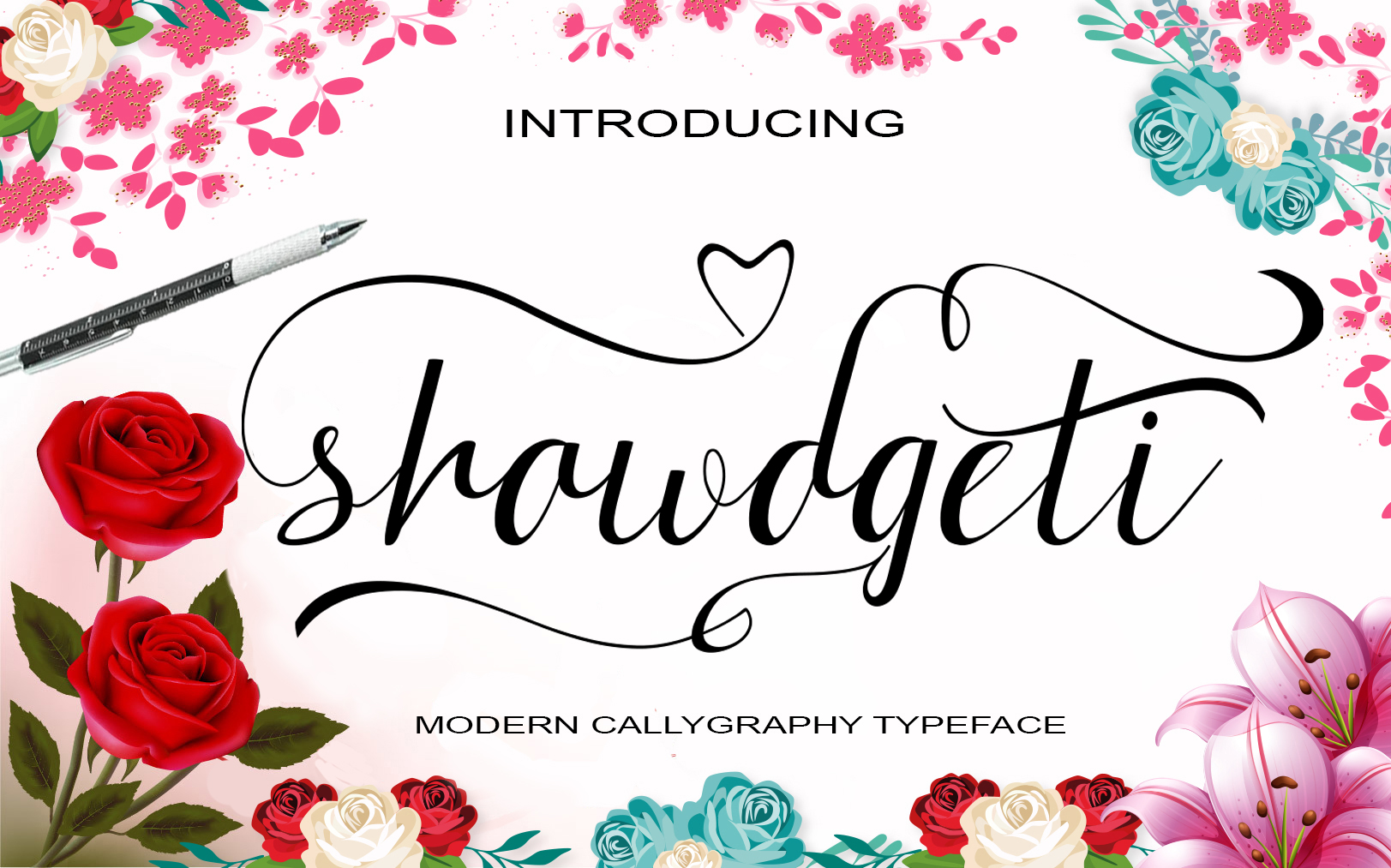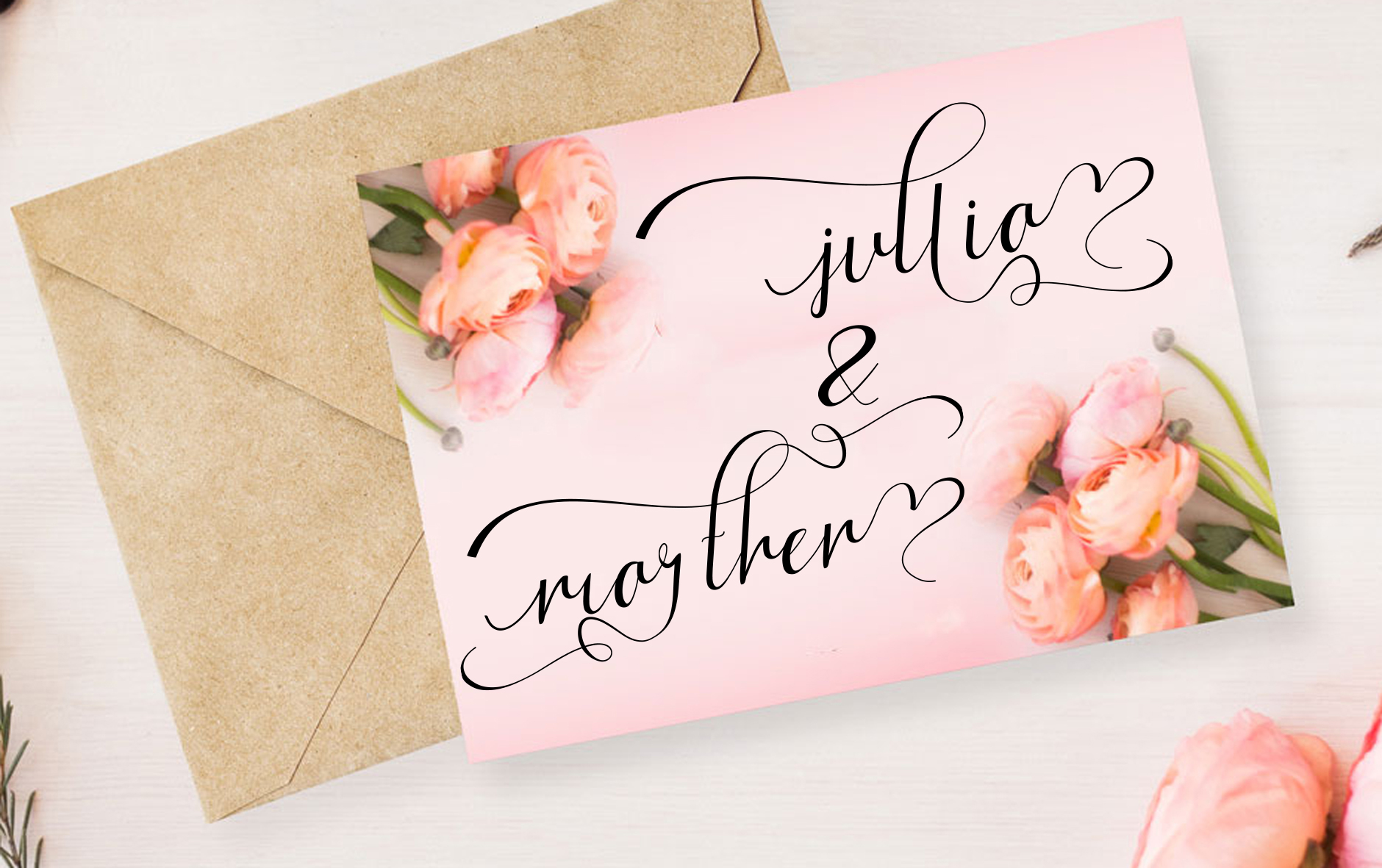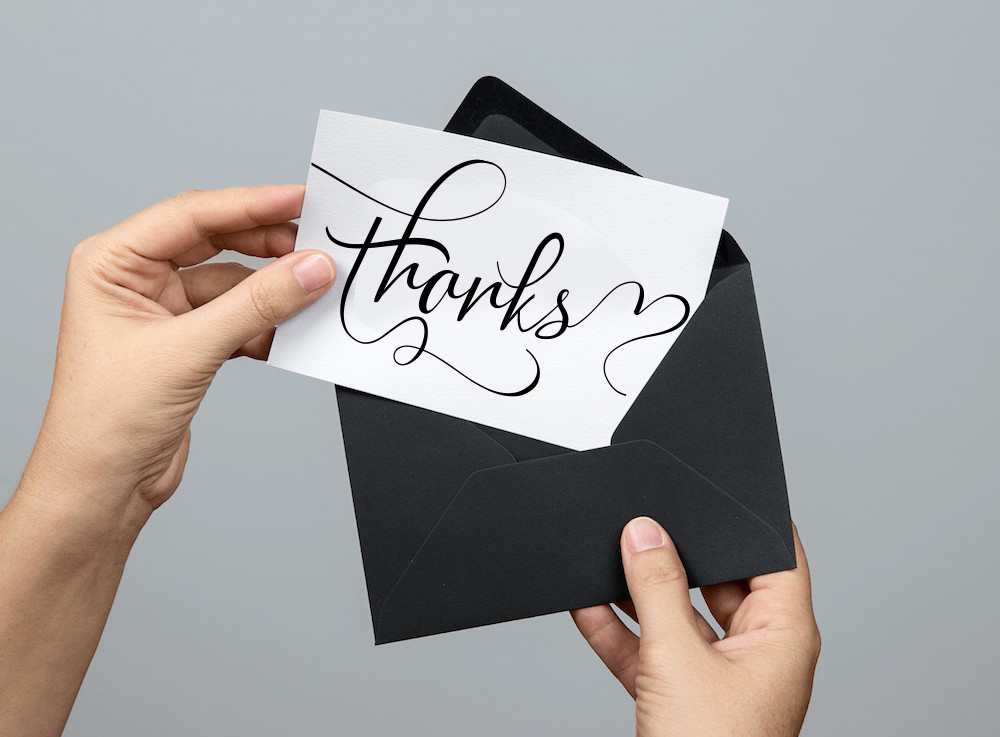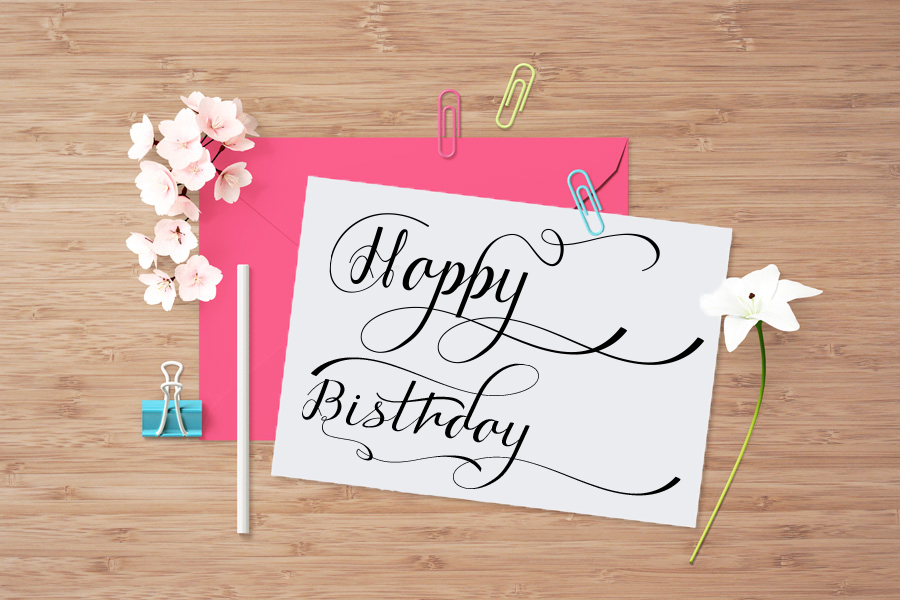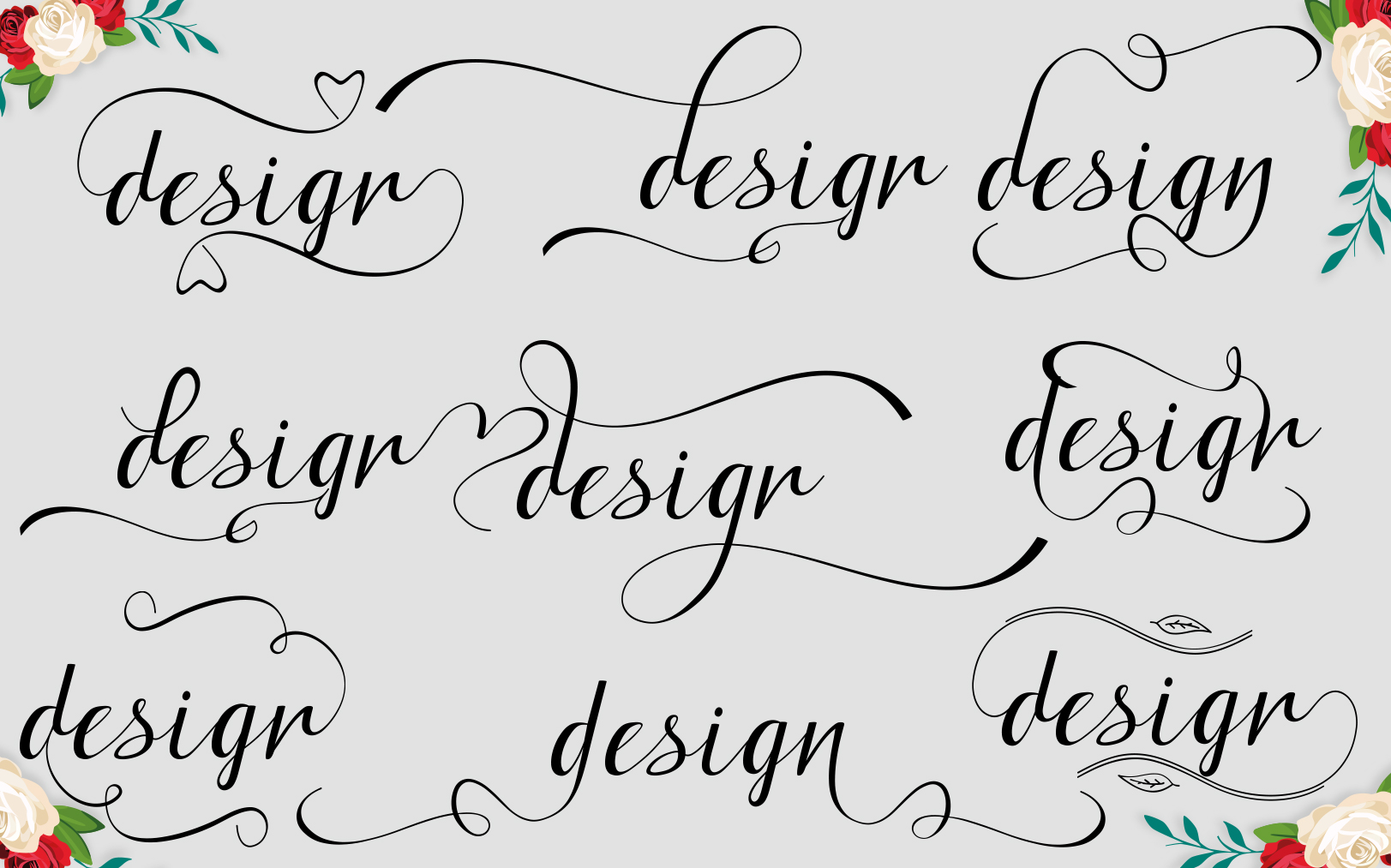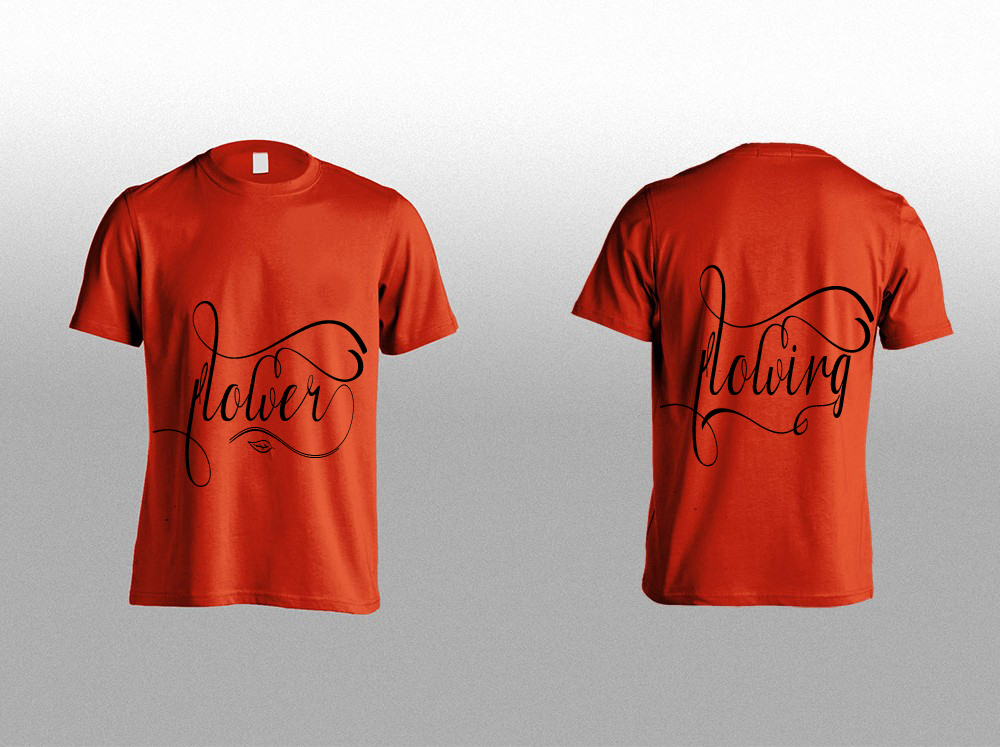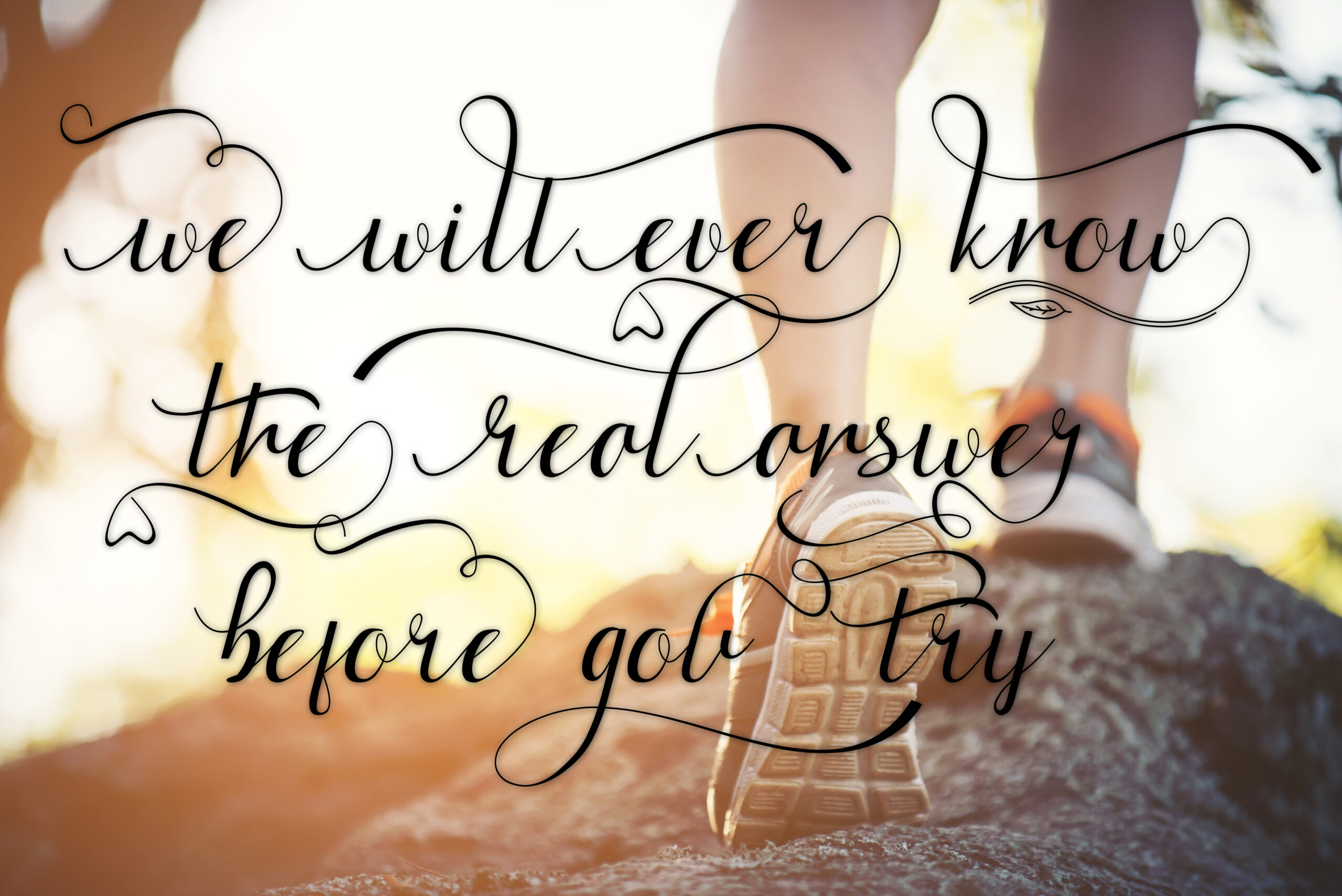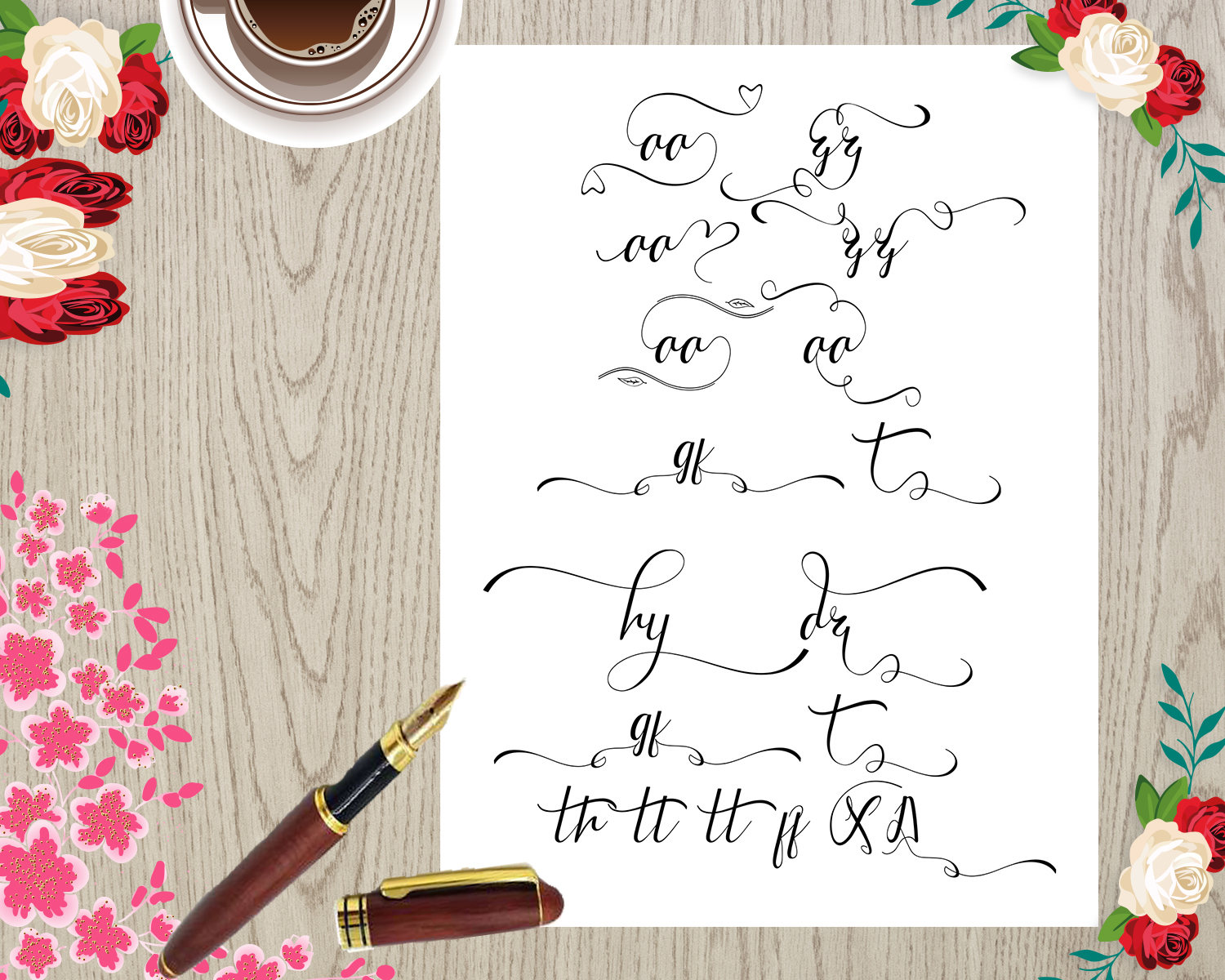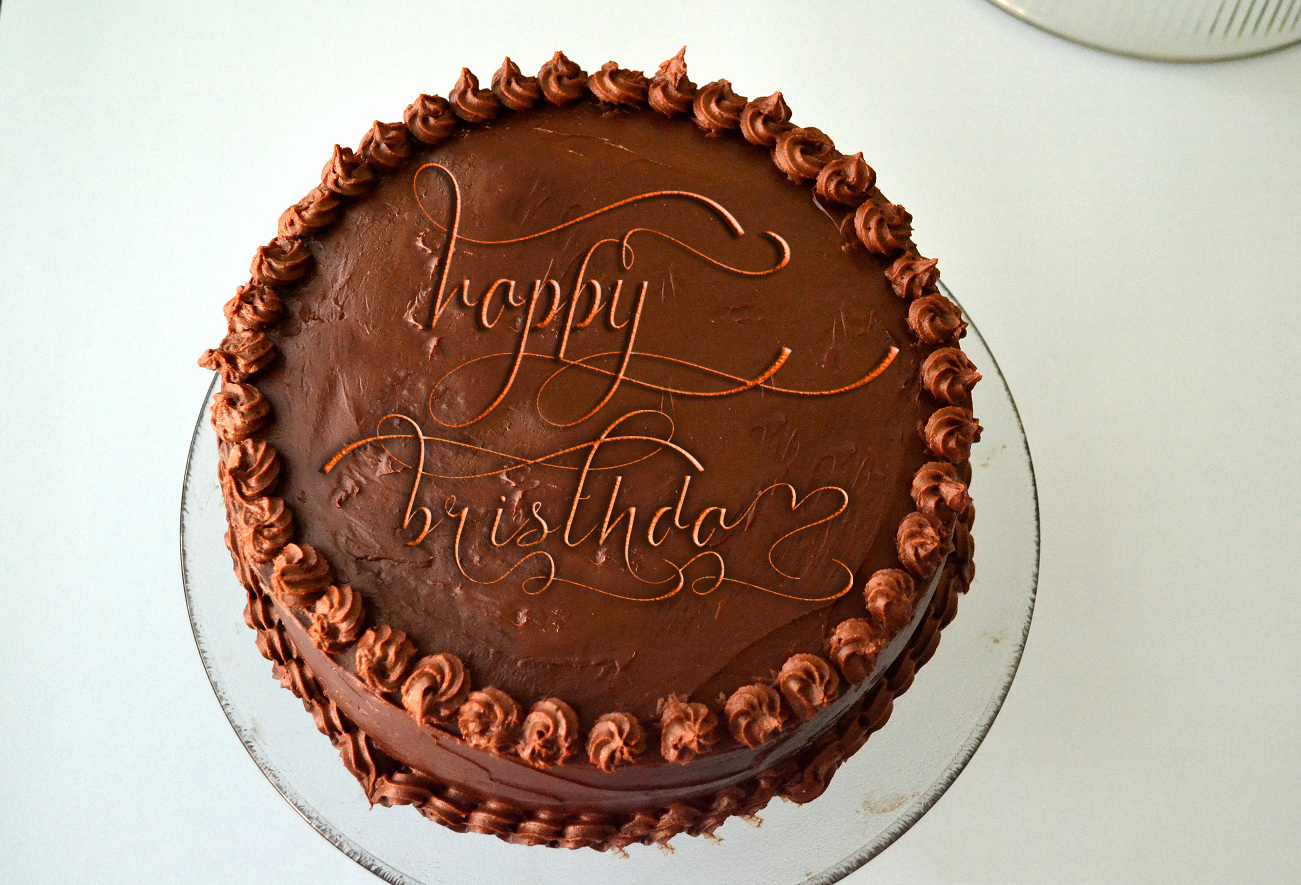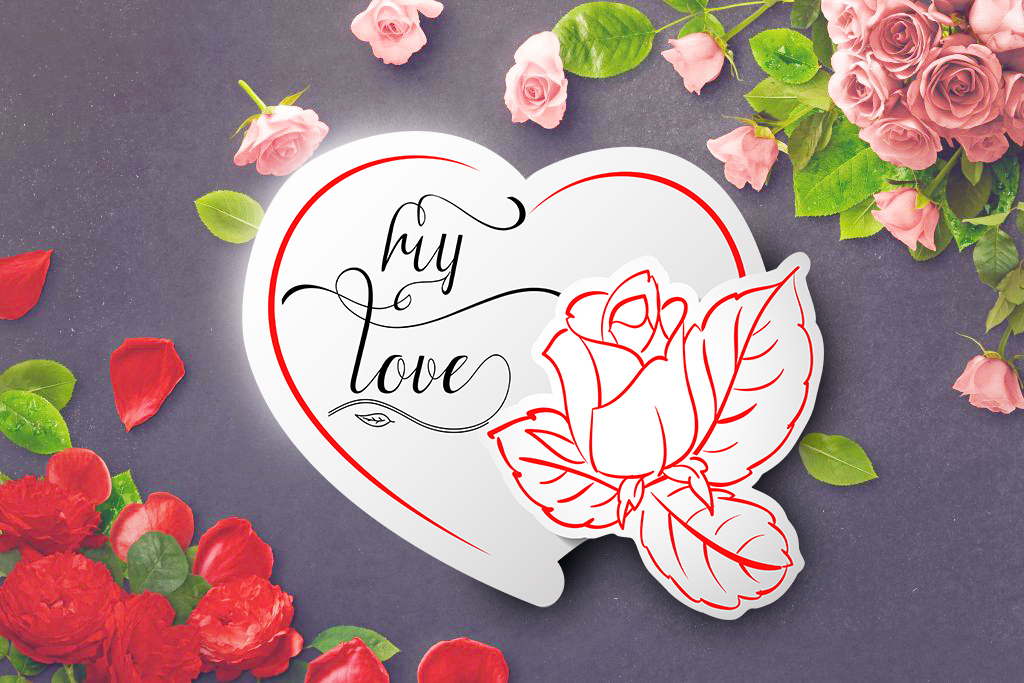
Shawdgeti Font
About Shawdgeti Font
Shawdgeti is a font inspired by handwriting itself, suitable for various projects due to its charm and beauty. This is really a prominent script made with precision and attention to detail.